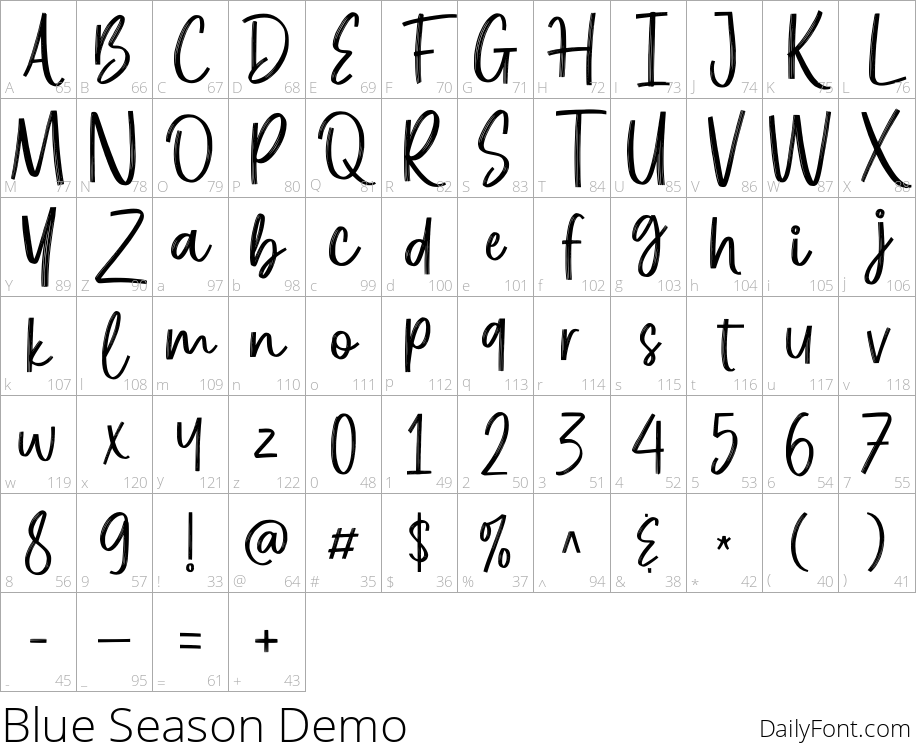
Blue Season
Looking for a script font that embodies relaxation, sophistication, and versatility? Look no further than fonts like Blue Season! With its elegant curves and smooth lines, this lovely font is perfect for designers seeking a calming yet stylish addition to their projects.
Whether you're working on a branding project, creating an invitation or menu, or building a website, Blue Season's adaptability makes it an ideal choice. Its refined aesthetic ensures your design will exude class and professionalism, while its relaxed feel keeps the tone approachable and friendly.
This beautiful font is designed to bring a sense of serenity and refreshment to your designs, making it perfect for projects that require a touch of whimsy or a dash of sophistication. With its diverse range of letterforms and flourishes, Blue Season will add a unique charm to your work, from logos and headings to body text and captions.
If you're searching for a font that can help create a sense of calmness, elegance, and playfulness in equal measure, Blue Season is an excellent choice. Its versatility makes it suitable for a wide range of design projects, from modern to vintage-inspired styles.